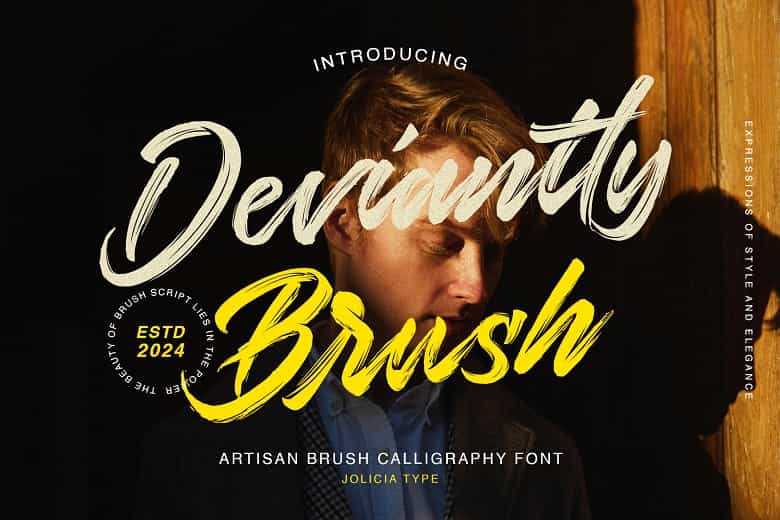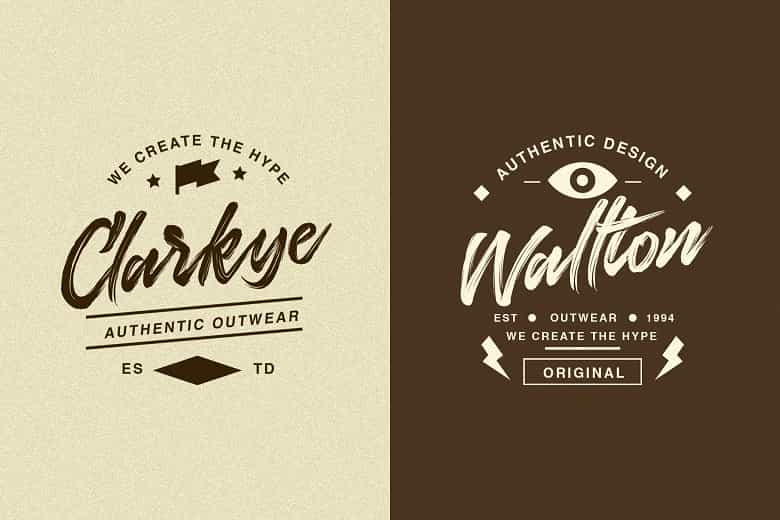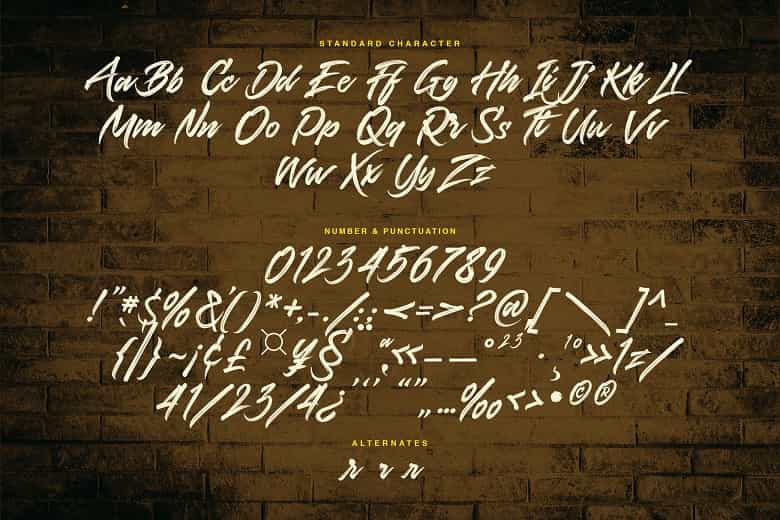
Deviantly Brush Font is a professional brush and expressive handwritten that looks as if the creator painted it with rebellious passion. Every single curve of this font looks like a rebellion and a free spirit which makes it ideal for any project that wants to shout out loud. Due to its rawness and non-structured manner,